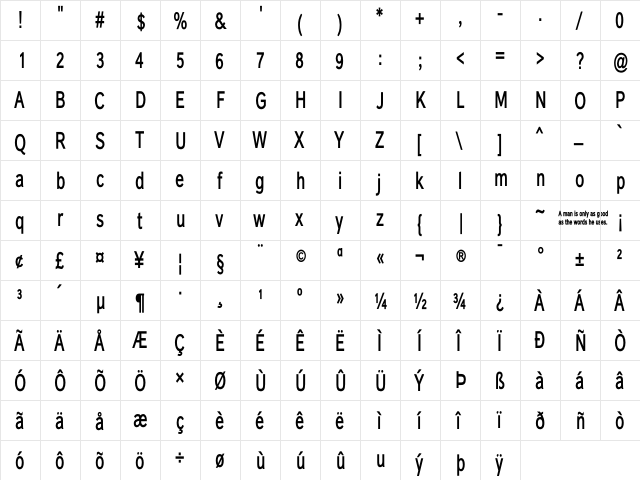
Carnova SemiBold Narrow Regular
Design Context for Carnova SemiBold Narrow Typeface
Carnova SemiBold Narrow is a composed and adaptable typeface that performs quietly and consistently across a wide range of design contexts. Its bold stroke weight gives it real presence on the page. Its narrow stance lets it pack a punch even in space-constrained designs.
Pro Tip: Pair Carnova SemiBold Narrow with a font of contrasting weight or personality to build a more expressive typographic hierarchy.